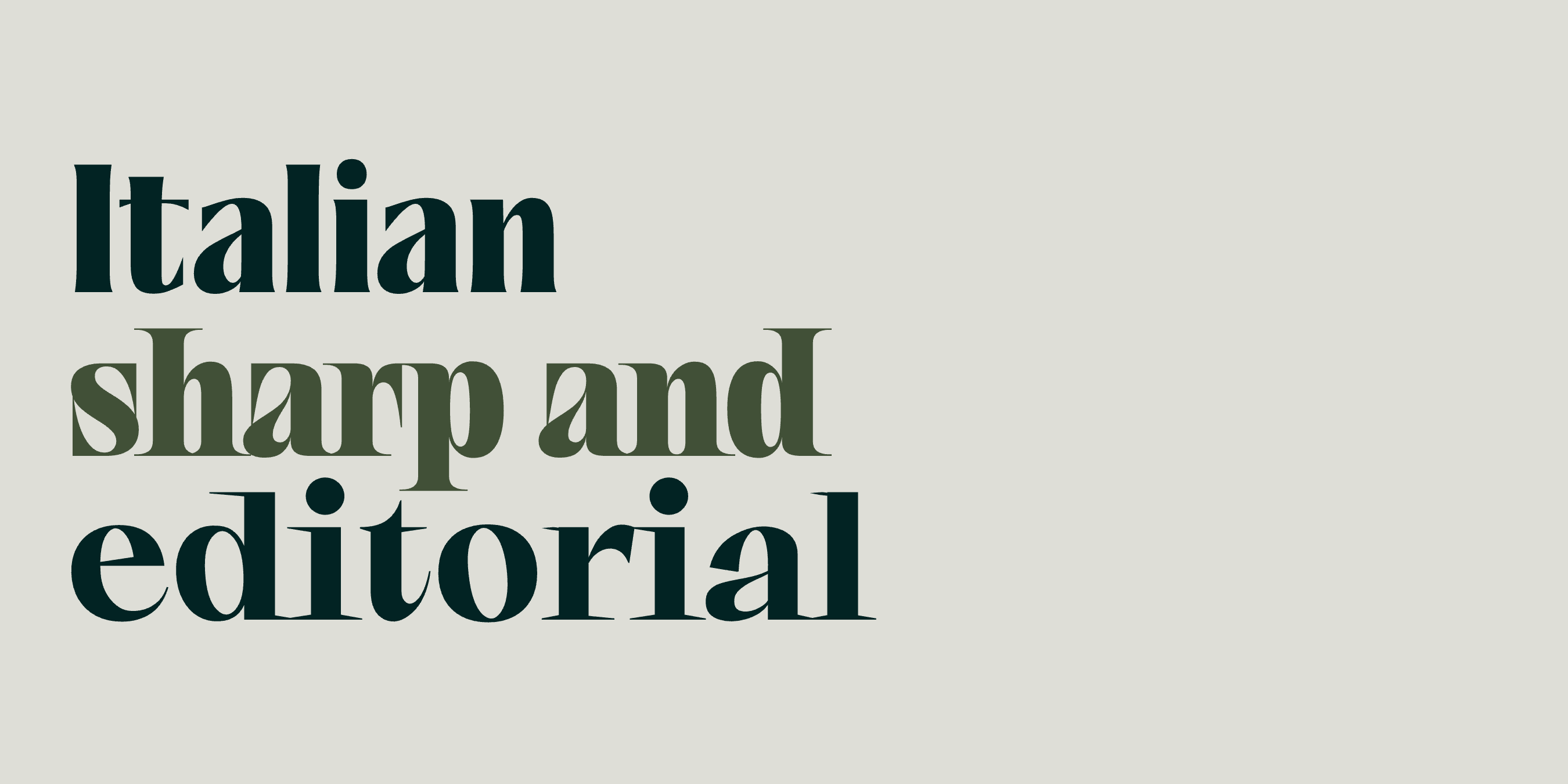
Italian-Style Fonts for Fashion and Editorial Branding
Saltz, Aezra, Rozi — Mojomox fonts shown in Italian-Style Fonts for Fashion and Editorial Branding
What designers mean by "Italian fonts" is usually one of two things: the sharp condensed serifs that fashion magazines like Vogue Italia and Numero use as masthead and editorial titling, or the high-contrast didone modernism that came out of Bodoni's workshop and lives on in luxury fashion identities. Both traditions share a love of sharp terminals, condensed proportions, and dramatic contrast between thick and thin strokes.
These seven Mojomox fonts sit in that lineage. Use them for fashion editorial work, beauty brand wordmarks, luxury hospitality identities, and any project that wants the considered drama of Italian design tradition.
1. Saltz
Sharp condensed serif that channels the Italian editorial tradition directly. The proportions stay distinctive at display sizes and remain legible at smaller sizes. A natural fit for fashion magazines, beauty editorials, and luxury wordmark work.
2. Aezra
Sharp narrow serif with long terminals, the kind of detail Italian foundries spend years refining. The condensed proportions give Aezra real personality at large sizes. Strong for fashion lookbooks and editorial covers.
3. Ques
Wide elegant contrast serif-style typeface. The wide proportions are unusual for Italian work, which usually leans condensed, but the high contrast and refined strokes keep it firmly in the tradition.
4. Mod
Modern serif with elegant proportions. Quieter than Saltz or Aezra, but firmly in the modernist Italian lineage. Good for sophisticated brand wordmarks and body text in editorial layouts.
5. Roma
The name is not accidental. A modern elegant sans-serif with contrast that nods to the Italian tradition of disciplined modernism. Use it as the sans companion to any of the Italian-style serifs above.
6. Rozi
Modern elegant font with sharp serifs. The crisp terminals and confident strokes give Rozi an Italian editorial quality at any size.
7. Bauhaus Chez
Rounded high-contrast typeface. Not strictly Italian in lineage, but the contrast and refined character put it in the same conversation. Strong for beauty brands that want the drama without the strict austerity.
How to use Italian-style type
The Italian tradition is about restraint at the macro level and detail at the micro level. Generous white space. Confident hierarchy. Small considered details (sharp terminals, distinctive ampersands, italic alternates) doing the design work. Pair these fonts with quiet sans-serifs for body text. Let the display fonts carry the editorial voice.